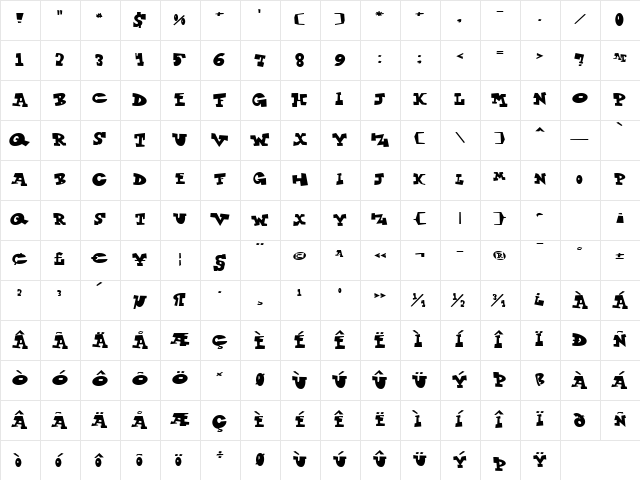
Finer Diner Downtown Regular
Design Context for Finer Diner Downtown Typeface
Finer Diner Downtown is a composed and adaptable typeface that performs quietly and consistently across a wide range of design contexts.